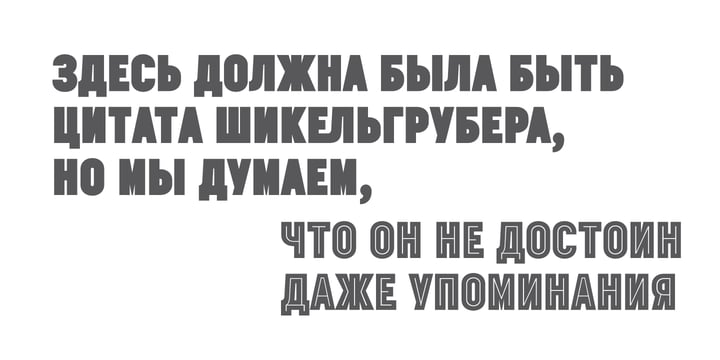
MNSTR
by Gaslight
The MNSTR Font Family was designed by Roman Shchyukin and published by Gaslight. MNSTR contains 2 styles and family package options. More about this family
Designers: Roman Shchyukin
Foundry: Gaslight
Gaslight Type Foundry, founded in summer of 2011, is a collaboration between two type designers - Valery Zaveryaev and Roman Shchyukin. Type design is our hobby, a hobby, that carry us completely... almost. Our purpose is to design quality typefaces with supporting Latin and Cyrillic characters, for using in various kinds of design.